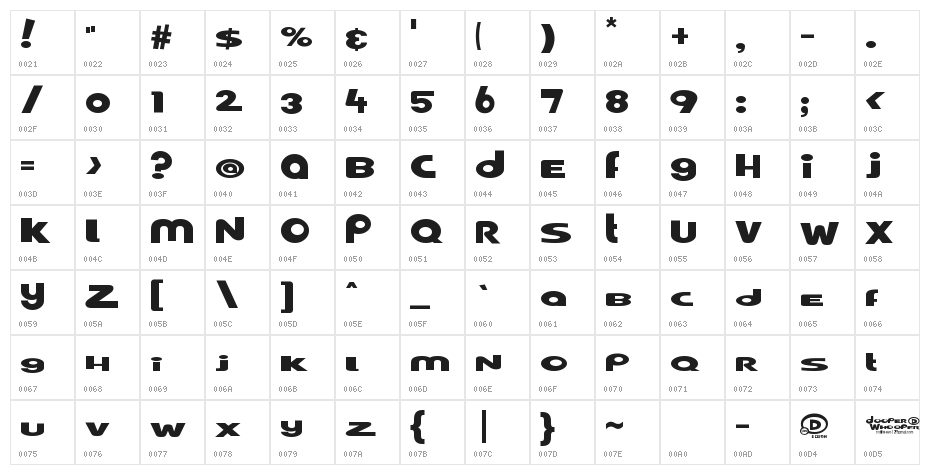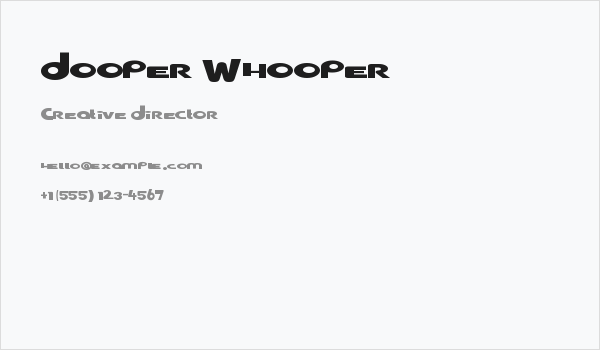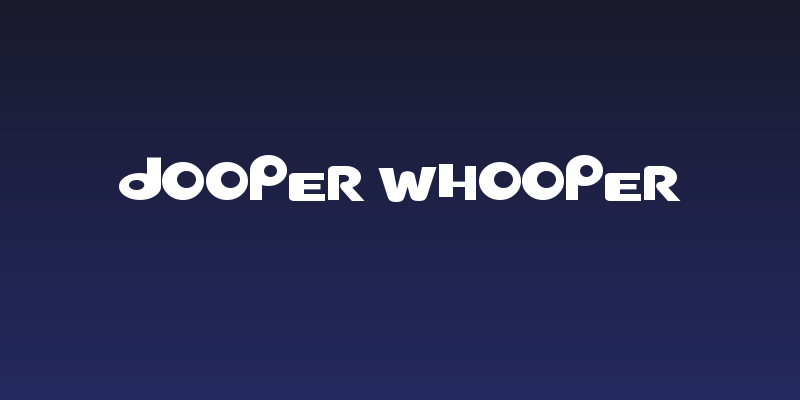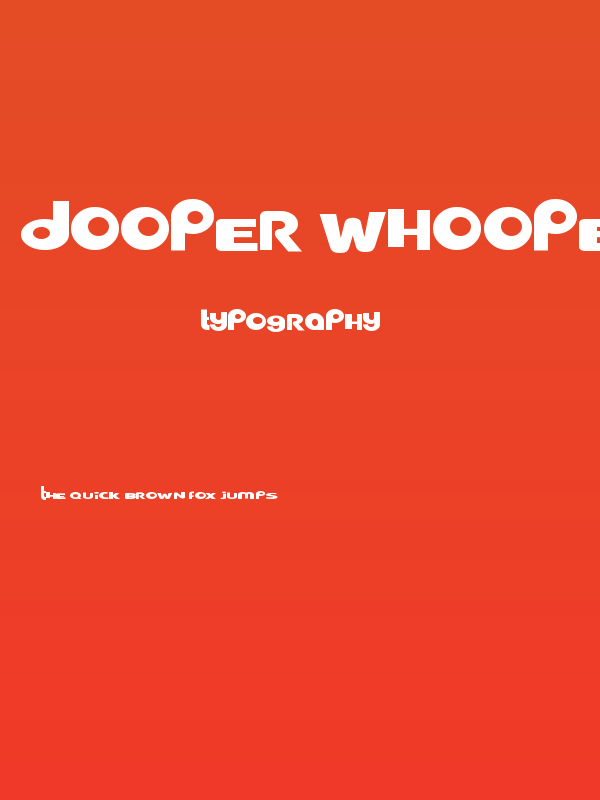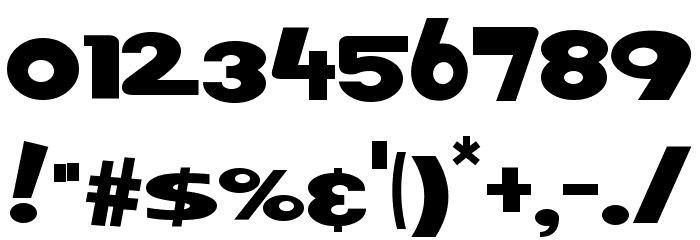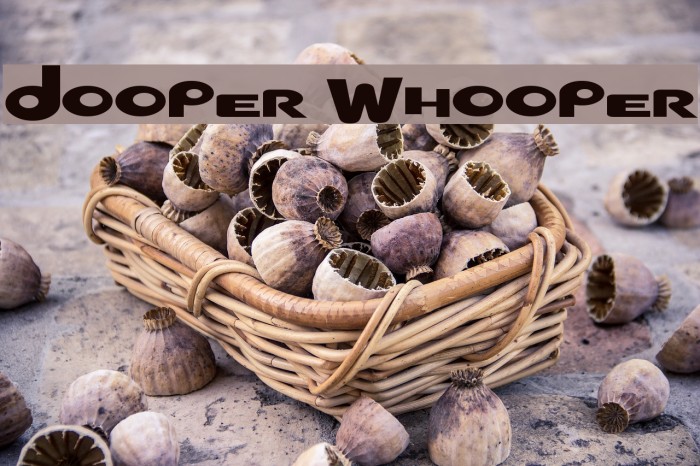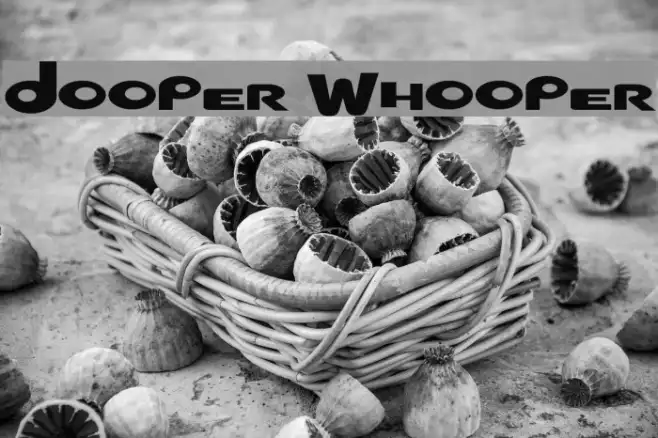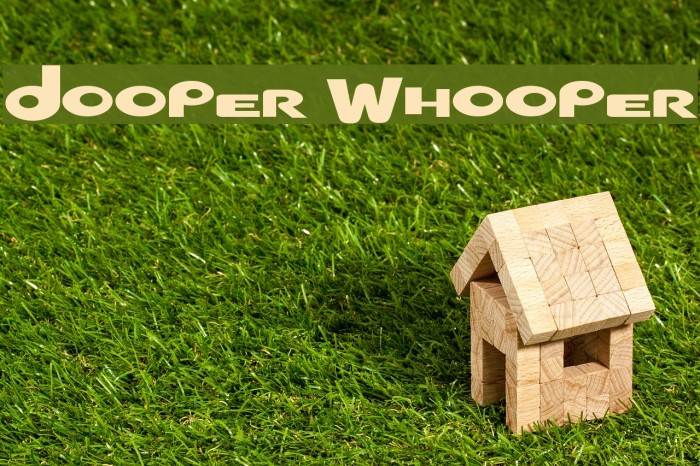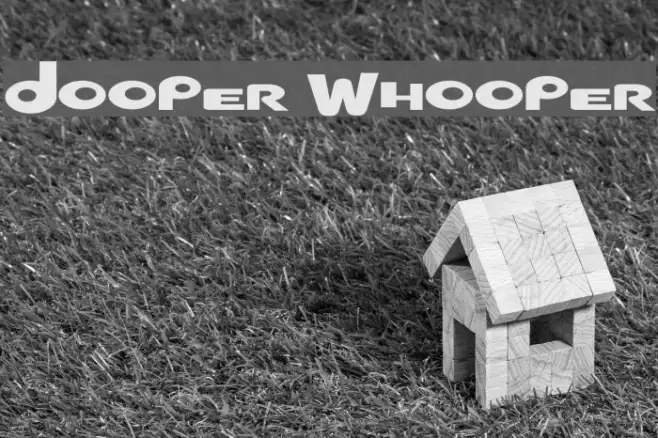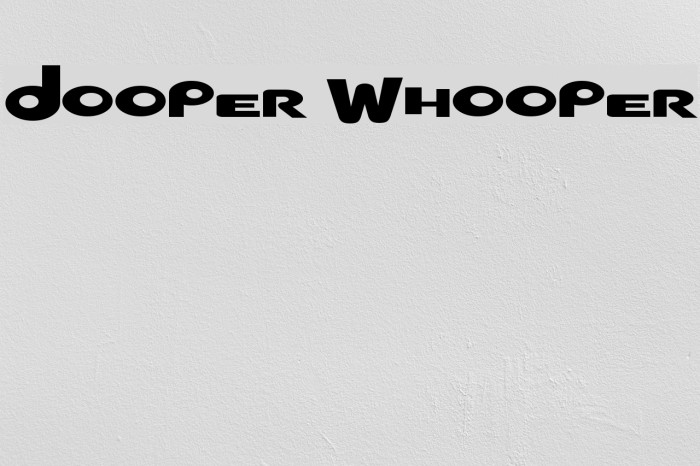
Dooper Whooper Font
Dooper Whooper Description
This font features a bold and playful design with rounded edges and a strong presence. The characters are wide and have a consistent thickness, giving it a modern and friendly appearance. The uppercase and lowercase letters maintain a uniform style, while the numerals and special characters complement the overall aesthetic. The font's unique style makes it suitable for eye-catching designs and creative projects.